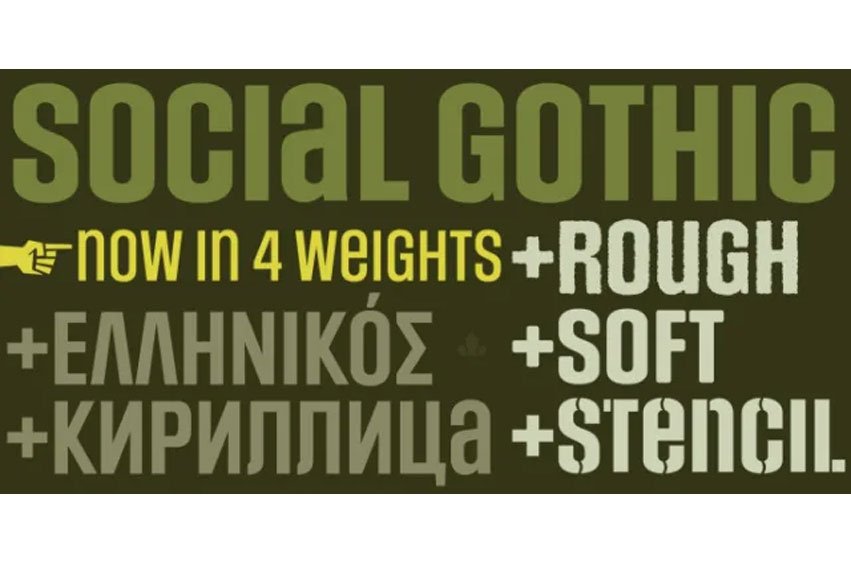
Social Gothic Font first launched in 2007 as a basic single font, it became an instant branding and advertising favourite. It was used widely by a few major fashion outlets and department stores, then soared to new heights of exposure when it became the billboard-cause standard face for a few charity outfits and political organizations throughout Canada’s major urban centres.
Social Gothic is a unicase font that combines standard sans serif elements with some distinct “wooden” shapes and oval lowercase components, to make for a totality that achieves a handmade look while maintaining a clean, legible, understated and easy message delivery. It is a gothic with quite a few humanist leanings, something seldom found in the sans serif genre.
This retail Social Gothic family is the re-conceptualized, refined and optimized redux of the many bespoke versions that were commissioned and customized for various proprietary brands and projects over the years. The remastered set consists of four multi-script weights, rough and soft variations, and a very unique stencil treatment. Each of the Social Gothic fonts contains over 550 glyphs and support for Latin, Greek and Cyrillic languages.